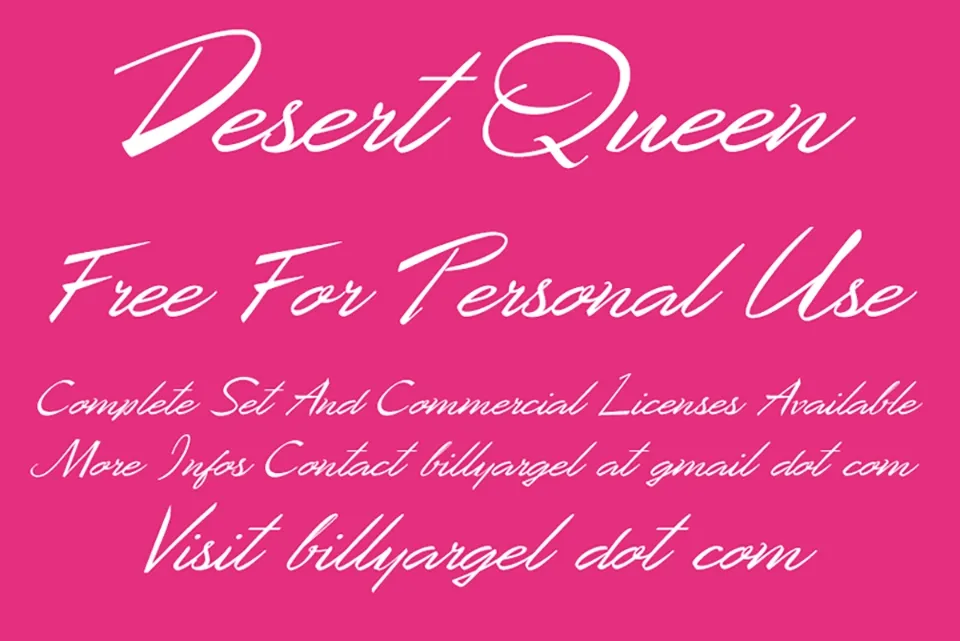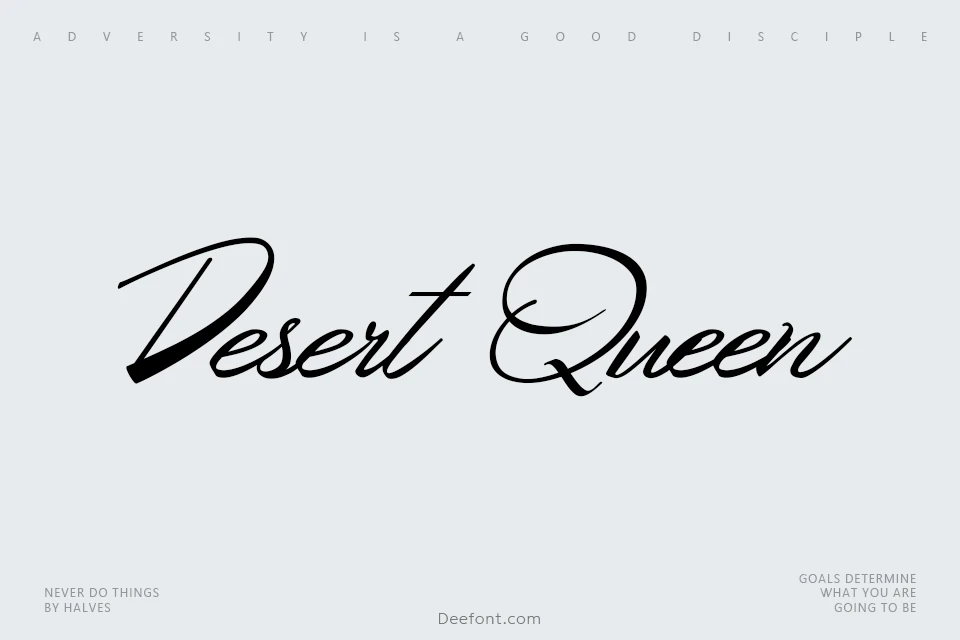
Desert Queen Font
Desert Queen Font font is a stylish script typeface created by Billy Argel. It features elegant, flowing handwritten strokes, making it ideal for invitations, branding, and creative projects. The font is free for personal use, but commercial licenses and the complete set are available for purchase from the designer.